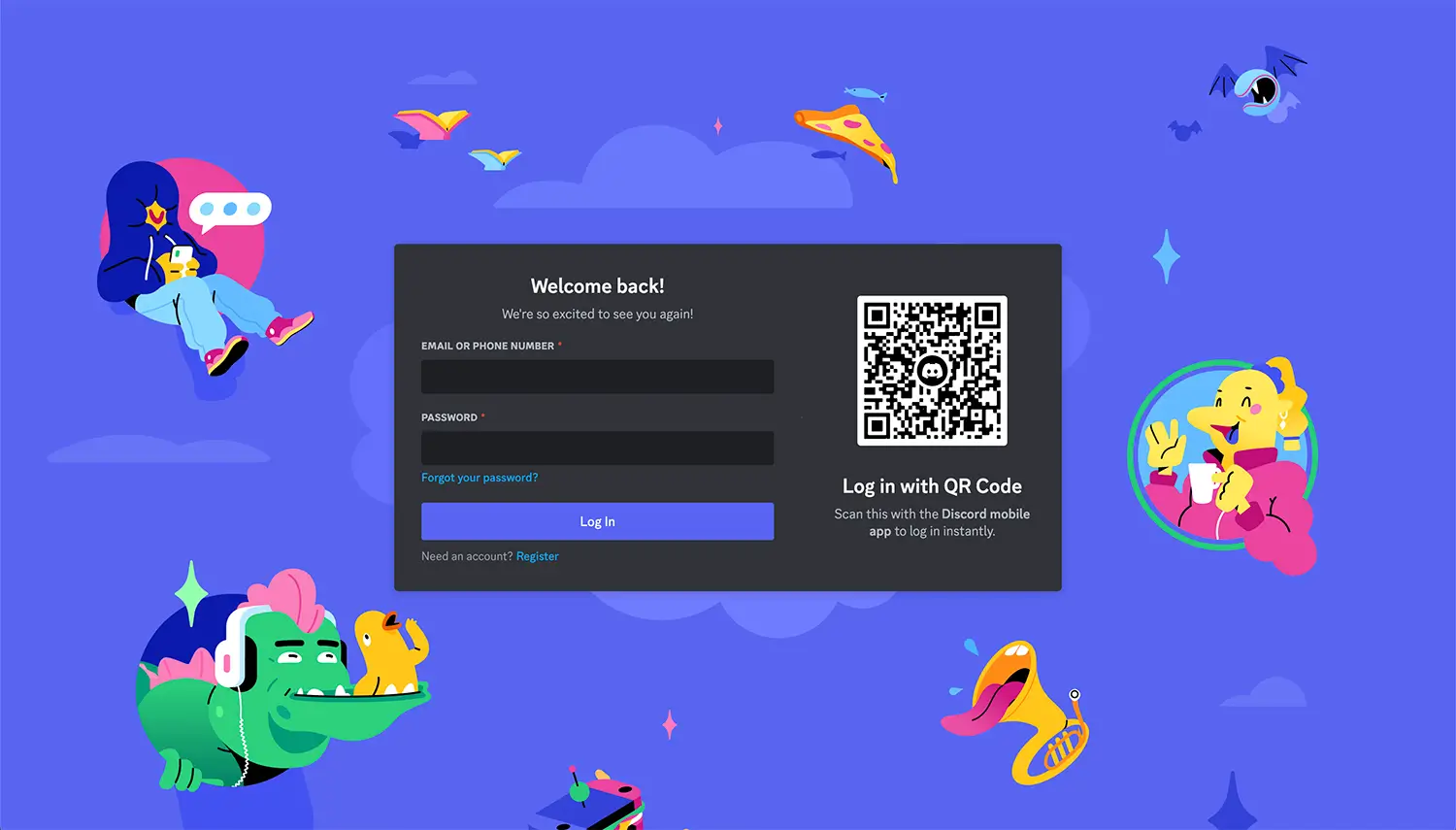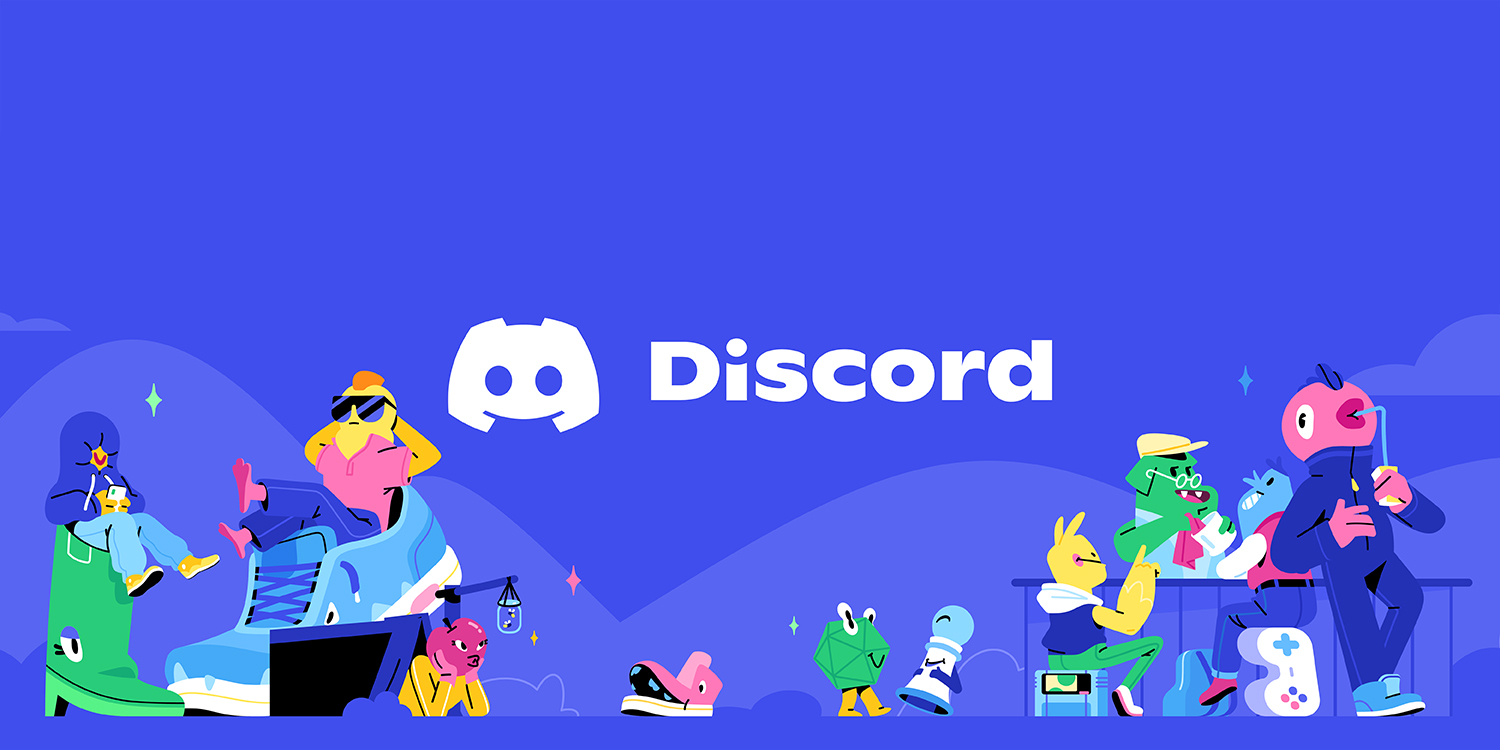
What Font Does Discord Use in 2026?
Discover what font Discord uses and why GG Sans became its modern identity. Learn the best Discord-style font alternatives with legal licensing to elevate your branding, UI design, and digital projects.
What Font Does Discord Use in 2026?
Discord is a free communication platform connecting users through text, voice, and video. Once a hub for gamers, it’s now a space for all kinds of communities — from hobbyists to professionals and even designers exploring inspiration or visual branding ideas.
What Font Does Discord Use?
Officially, Discord uses GG Sans, a custom sans serif typeface introduced on December 1, 2022. This font replaced the previous type system to enhance readability, design consistency, and user experience across all applications. However, since GG Sans is proprietary, you can’t freely use it for design or branding projects without proper licensing.
Your space to talk, play, and hang out — Discord.
Why Is the Discord Font Called GG Sans?
The name “GG” comes from the gamer term “Good Game,” symbolizing fun, fairness, and community. The typeface visually represents that spirit in its curved, friendly geometry — perfectly matching the cheerful personality of the Discord logo. It’s not just a font but part of the brand’s visual identity. If you want to create a similarly modern, approachable identity, there are many legally licensed sans serif fonts with the same balance and energy as GG Sans.
Top 9 Discord Font Alternatives
These fonts maintain the spirit of GG Sans—modern, geometric, and readable—making them ideal for brand identities, logo creation, and typographic systems.
1. Madani-Professional Modern Sans Serif
Madani - Professional Modern Sans Serif
A modern sans serif font perfect for branding, headlines, and logo design. Madani’s minimalist aesthetic makes it a solid discord font alternative for professional and tech-based brands.
2. Seagul-Modern Humanist Sans Serif
Seagul - Modern Humanist Sans Serif
Seagul’s soft curves and balanced proportions make it suitable for apps, branding, and logo systems inspired by GG Sans style.
3. Gate-Corporate Logo Font
Gate - Corporate logo Font
Gate is elegant and structured — an excellent logo font choice for corporate branding or community-based designs seeking a discord-like modern feel.
4. Metara-Modern Geometric Font
Metara - Modern Geometric Font
Metara matches GG Sans in sans serif geometric balance and sleek style. Great for branding, social media, and clean logo compositions.
5. New York-Modern Professional Font
New York - Modern Professional Font
Ideal for luxury identity branding and high-end products. New York pairs well with design systems that aim for minimalism and smooth readability, similar to GG Sans.
6. Actual-Neo Brutallis
Actual - Neo Brutalism Font
Combining personality with structure, Actual is a bold sans serif suited for branding, poster artwork, and logo design seeking visual boldness and contrast.
7. Malking-Modern Techno Logo Font
Malking - Modern Techno Logo Font
Modern and futuristic, Malking is perfect for visual identity and digital branding in tech startups, gaming, or esports — echoing the confident look of discord font.
8. Magero-Branding Sans Serif Font
Magero - Branding Sans Serif Font
Magero is sans serif font ideal for identity crafting and UI design. Its clean letterforms and balance make it a flexible alternative to GG Sans for corporate identities and applications.
9. Gestard-Headline Food Font
Gestard - Headline Food Font
Gestard stands out for culinary and hospitality logo designs that need thickness and character while maintaining readability like discord font.
Discord Font and Logo FAQ
Q: What font does Discord use?
A: Discord uses a proprietary custom typeface called GG Sans across its entire platform and logo assets.
Q: What is the Discord logo?
A: The Discord logo, or “Clyde,” looks like a smiling controller face. It’s designed to express friendliness and approachability, complemented by the smooth geometry of GG Sans typography across the brand.
Q: Can I download or use GG Sans for my logo?
A: No. GG Sans is not public. If you want to design a similar Discord-style logo, you can use licensed fonts such as Madani, Gate, or Metara as stylistic substitutes.
Your space to talk, play, and hang out — Discord.